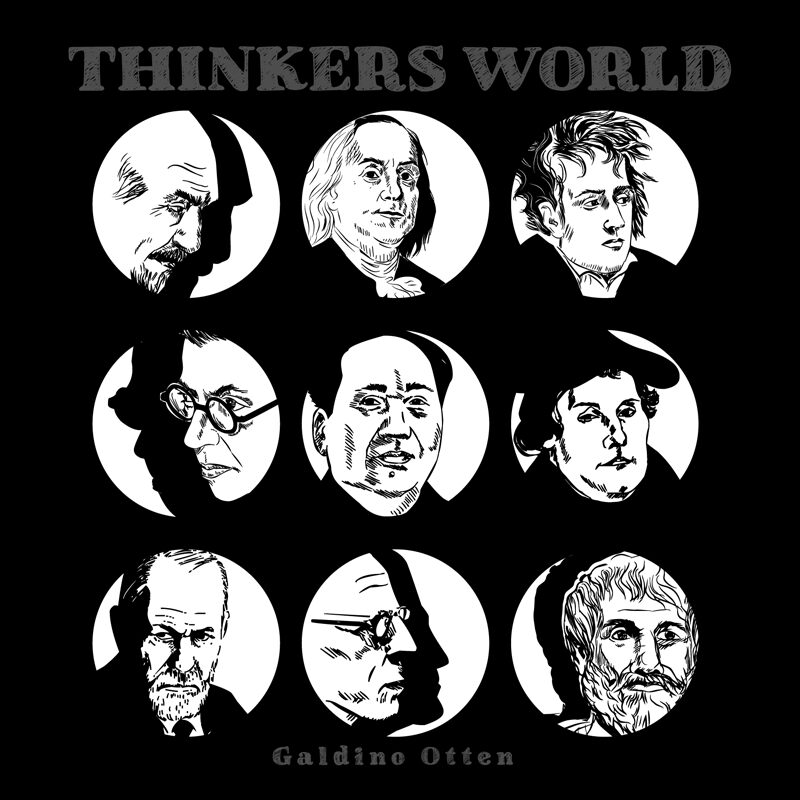
Thinkers World
Dive into the whimsical realms of Thinkers World by Galdino Otten Fonts, where each character is a portal to human creativity and expression. This dingbat font stands out with its unique array of symbols that capture the essence of innovation and thought.
Perfect for a variety of creative endeavors, from editorial illustrations to inspirational posters, Thinkers World offers an artistic touch that speaks to the curious and imaginative soul. Its human-style icons serve as perfect metaphors in design projects aiming to convey complex ideas in simple visual terms.
Embrace the versatility of Thinkers World and let your designs tell a story as multifaceted as the mind itself.
Perfect for a variety of creative endeavors, from editorial illustrations to inspirational posters, Thinkers World offers an artistic touch that speaks to the curious and imaginative soul. Its human-style icons serve as perfect metaphors in design projects aiming to convey complex ideas in simple visual terms.
Embrace the versatility of Thinkers World and let your designs tell a story as multifaceted as the mind itself.